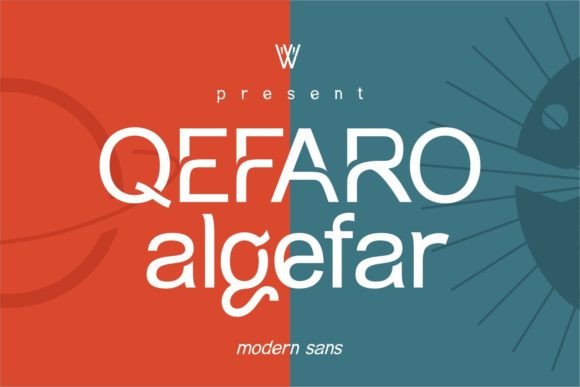
Say goodbye to the mundane and open the doors to a typographic odyssey with Qefaro Algefar, a transformative sans serif font family that will ignite your creative spirit. Inspired by the minimalist elegance of Arial, Qefaro Algefar transcends the ordinary, introducing a world of artistic expression and visual intrigue.
Each letter, meticulously crafted by the visionary minds at Whymore, is a masterpiece of form and function. While retaining the basic structure of Arial, Qefaro Algefar elevates the typography experience with intricate details, delicate curves, and artistic flourishes. The result is a font that commands attention, exuding both formality and creativity, making it the perfect choice for your next design project.
Qefaro Algefar's versatility knows no bounds. Its clean lines and modern aesthetics lend themselves effortlessly to logos, magazine titles, product promotions, and even feature film productions. Whether you're a seasoned designer or a creative enthusiast, Qefaro Algefar will captivate your audience and leave a lasting impression.
As you explore the depths of Qefaro Algefar, you'll discover a font that breathes life into your designs. Its adaptability and charm will ignite your imagination, allowing you to create designs that resonate with your audience and leave an indelible mark.
Qefaro Algefar is more than just a font; it's an artistic journey, an invitation to redefine the boundaries of typography. Embrace the allure of Qefaro Algefar and watch your creative vision soar to new heights.